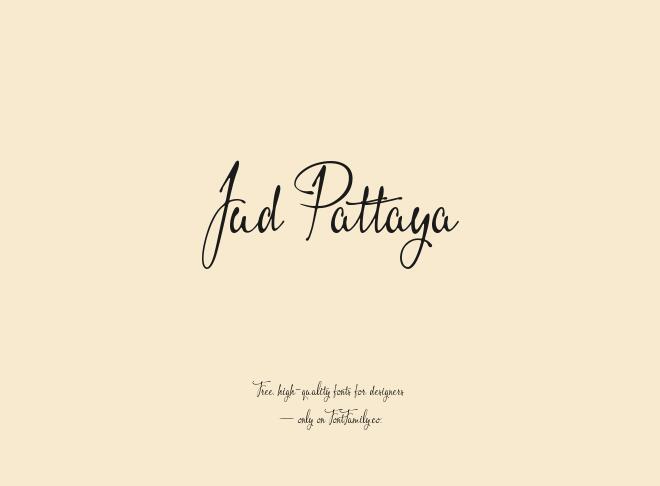
Jud Pattaya Font
Jud Pattaya Font is a unique handwritten typeface that brings a touch of playfulness and modern aesthetics to any design project. Created by the talented Design Studio Pattaya, this font is perfect for injecting a sense of fun and freshness into your work. With its clean lines and dynamic forms, Jud Pattaya Font is reminiscent of popular handwritten fonts, but with a distinctive twist. It works exceptionally well for display purposes, headlines, posters, branding, and more. Its modern, playful style makes it an excellent choice for a wide range of creative projects. If you're a designer looking to add a unique, contemporary touch to your work, Jud Pattaya Font is a must-have addition to your font collection.